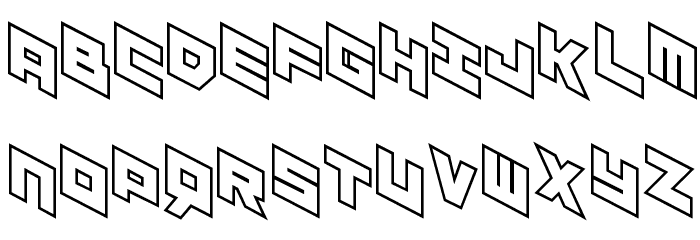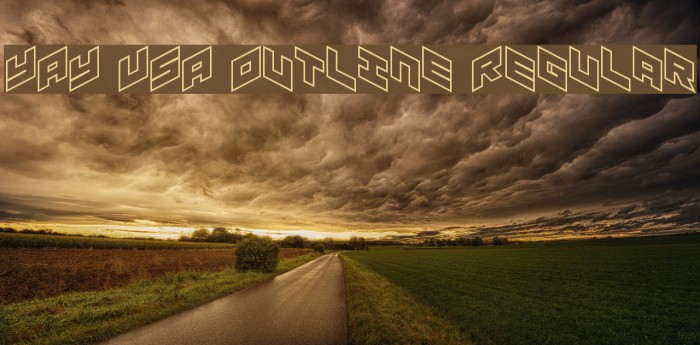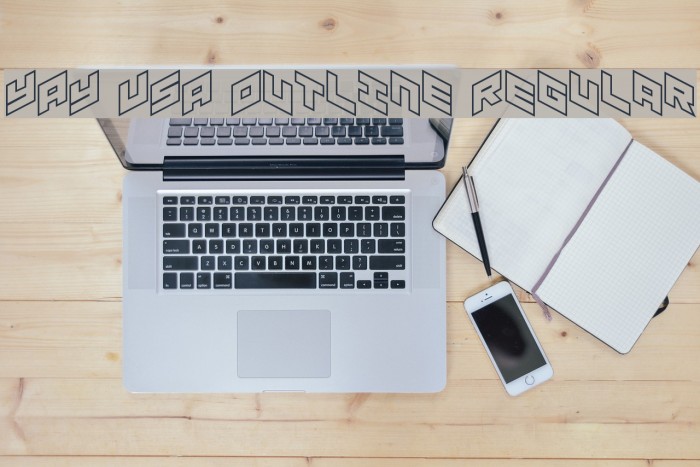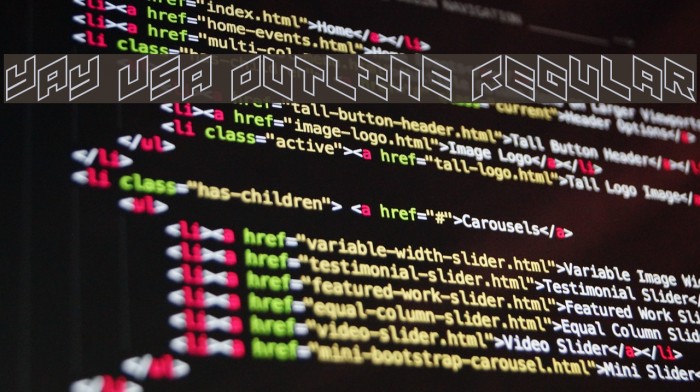
YAY USA Outline Regular Font
This font features a bold, geometric outline style that gives it a striking and modern appearance. The characters are constructed with sharp angles and clean lines, creating a sense of depth and dimension. The uppercase letters are particularly prominent, with a block-like structure that enhances their visibility. The font's outline design allows for creative use of color and background, making it versatile for various design applications. Its unique style is both eye-catching and memorable, suitable for projects that require a strong visual impact.
A bold, geometric outline font with sharp angles and clean lines.
- Proposed Projects: Ideal for posters, logos, headlines, and any design needing a bold statement.